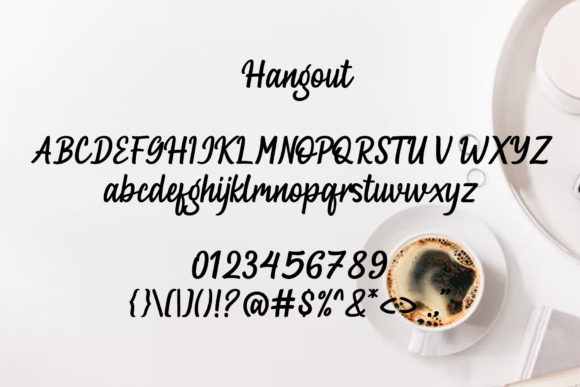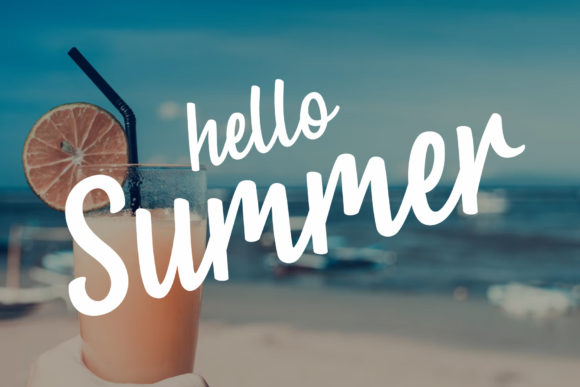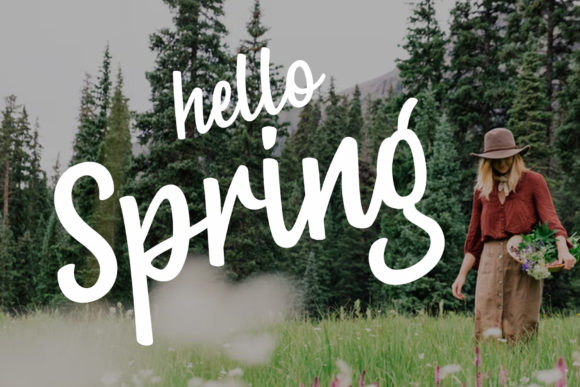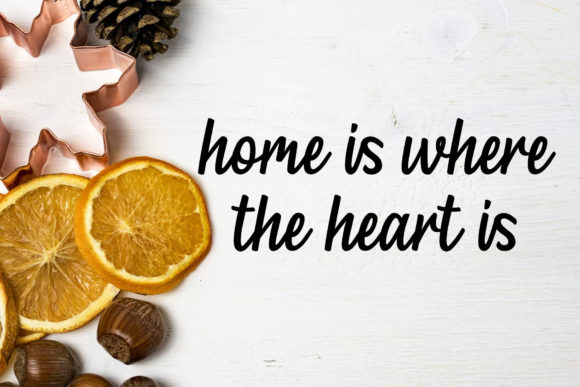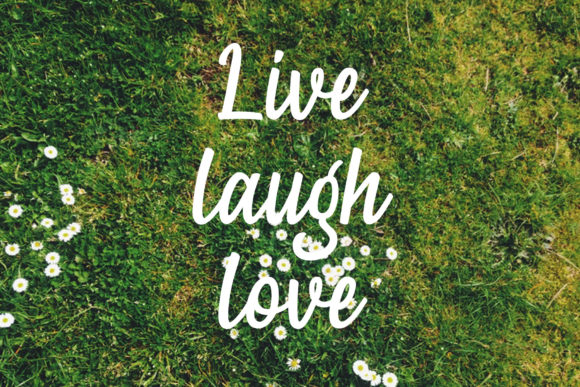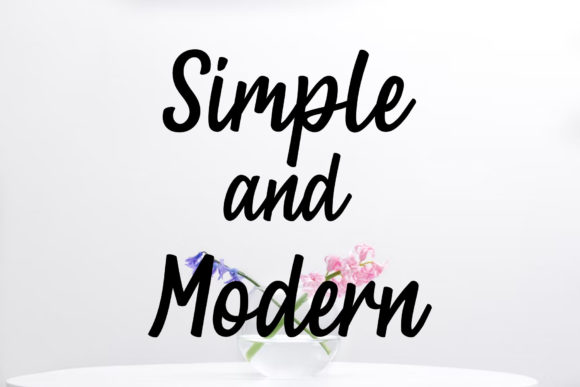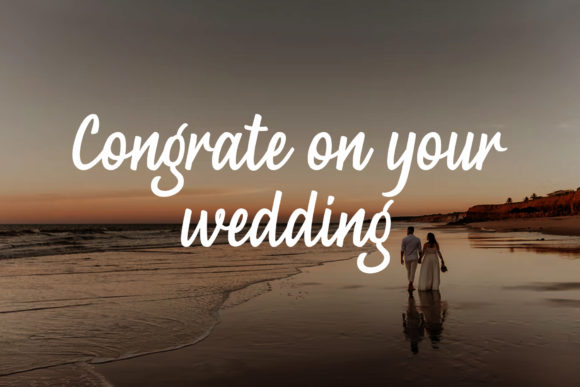
Hangout Font
About Hangout Font
“Hangout” is a charming handwritten script font that effortlessly captures the essence of modern handwriting. With its authentic and contemporary look, this font is the ideal choice for digital branding and design projects.
Designed to convey a sense of authenticity and personalization, “Hangout” adds a unique touch to any design. Whether you’re creating a logo, social media graphics, wedding decor, invitations, websites, blogs, Instagram posts, business cards, or other branding materials, this font offers versatility and style.
The handwritten appearance of “Hangout” lends a human touch to digital designs, making them feel more approachable and engaging. Its modern look is perfect for conveying a sense of creativity and individuality, making it well-suited for a wide range of applications.
One of the standout features of “Hangout” is its extensive glyph and ligature set, which is PUA encoded for easy access. This allows you to customize your designs with unique flourishes and variations, adding depth and personality to your typography.
In summary, “Hangout” is more than just a font—it’s a tool for storytelling and self-expression. With its authentic handwritten look and versatile applications, it empowers designers to create memorable and impactful designs across a variety of digital platforms.